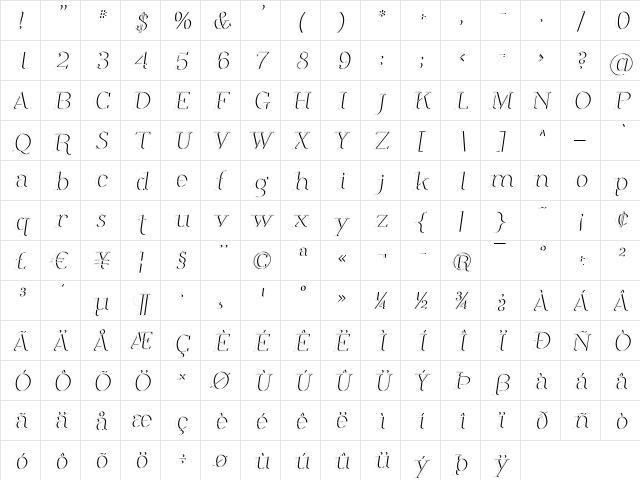
Phosphorus Dihydride Regular
| Designer | Derek Vogelpohl |
Design Context for Phosphorus Dihydride Typeface
Phosphorus Dihydride is a composed and adaptable typeface that performs quietly and consistently across a wide range of design contexts.